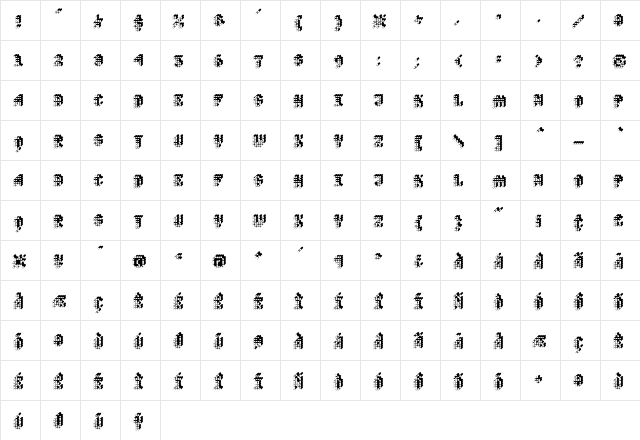
Quad Regular Font Preview
Quad Regular
Design Context for Quad Typeface
Quad is a composed and adaptable typeface that performs quietly and consistently across a wide range of design contexts.